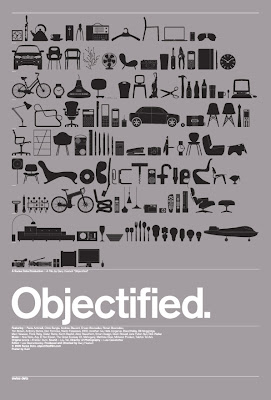
objectified
More fun with type via Gizmodo. This poster for the upcoming industrial design documentary Objectified (by the same guy that brought us Helvetica) was designed by Build and takes the iconic swiss design style to a more playful level by incorporating the film's logo into the sixth line of objects. The last line shows objects used to make the film. Fun! The poster is available for purchase here.